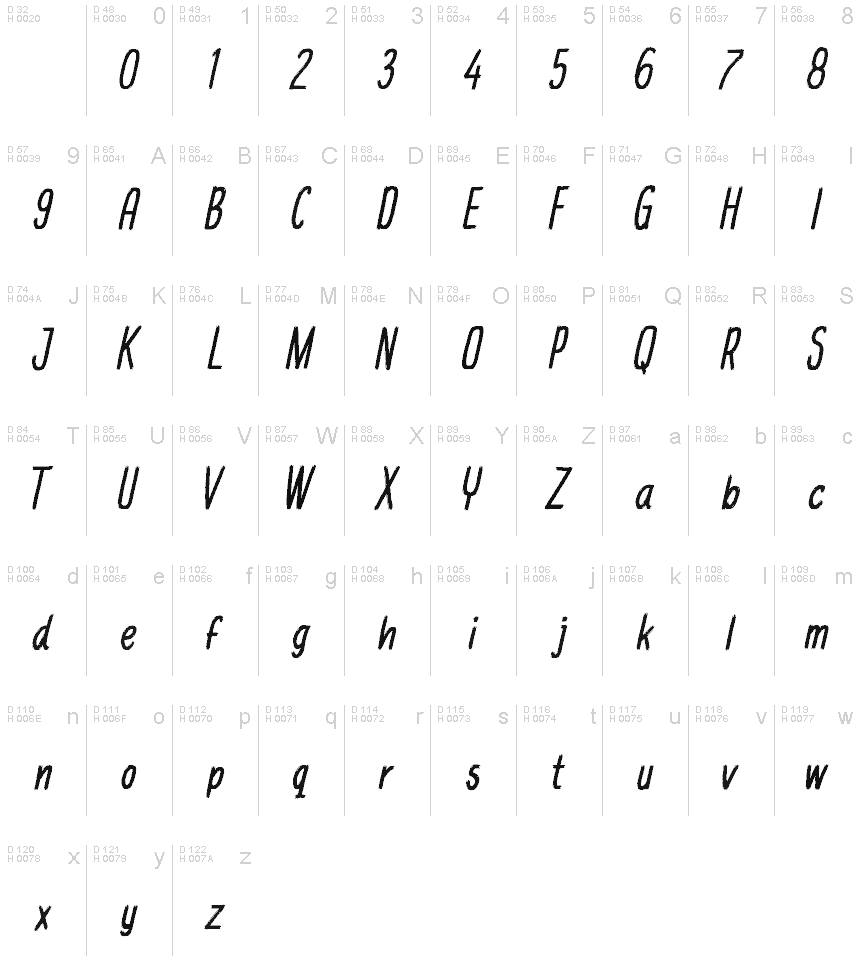
MICHAEL Jackfruit
Michael Jackfruit is a captivating brush font that effortlessly blends bold, expressive strokes with a delicate, lightweight touch. Designed by Cundrawan, this condensed typeface exudes a sense of dynamic energy and versatility, making it an ideal choice for a wide range of design applications.
The font's unique character is evident in its playful, yet refined, aesthetic. The sweeping, organic curves of the letterforms create a striking visual appeal, while the condensed width lends a sense of compactness and emphasis. Michael Jackfruit's versatility shines through, making it a suitable selection for branding, packaging, editorial design, and beyond.